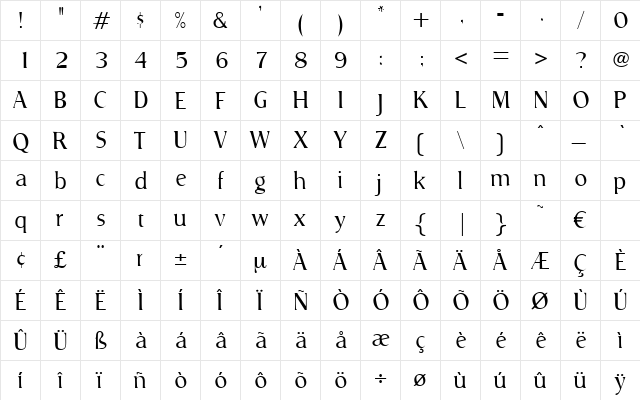
Priscilla Regular
Design Context for Priscilla Typeface
Priscilla offers clean, dependable letterforms without strong stylistic allegiance, making it a practical choice for designers who need flexibility.